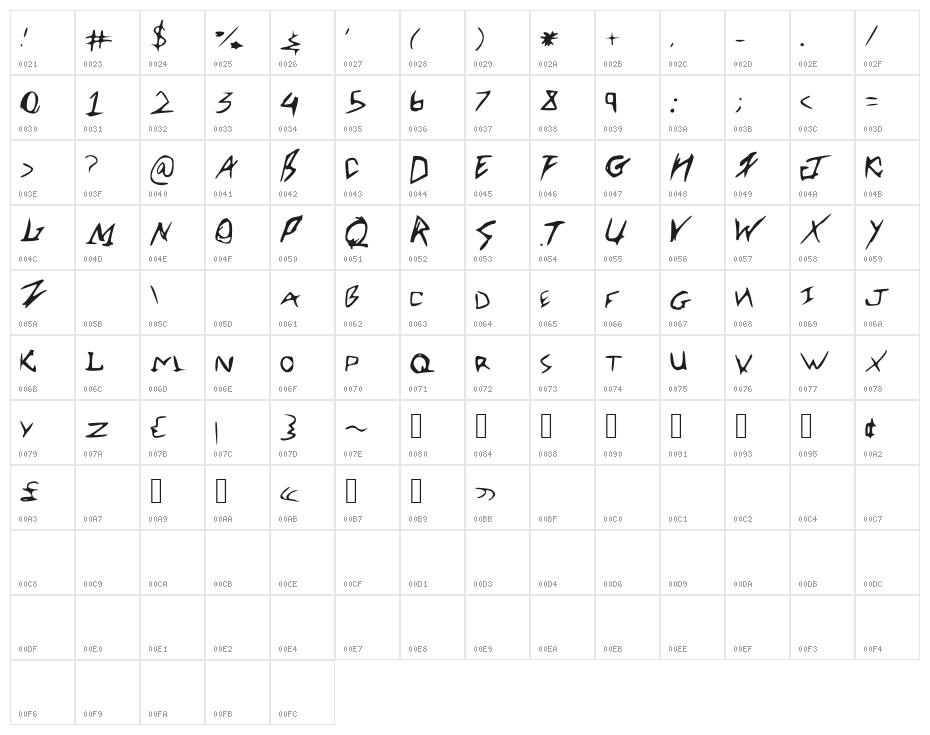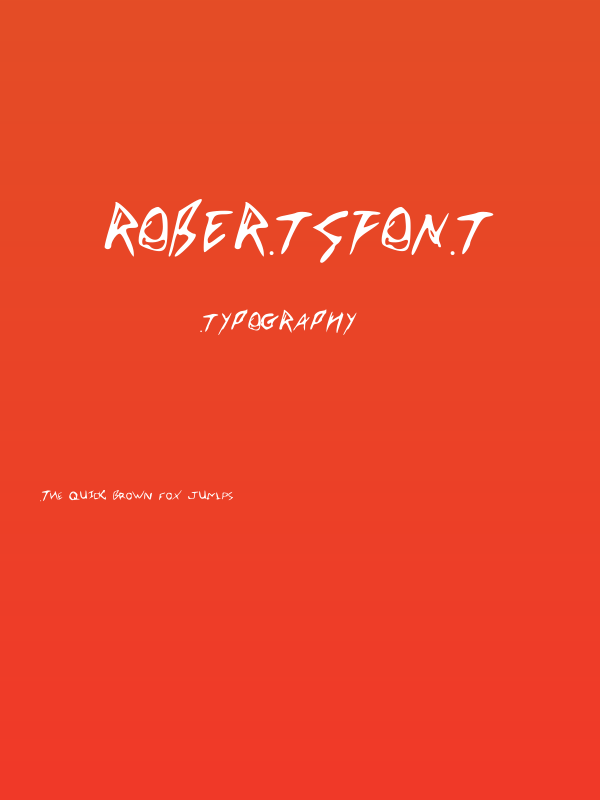
RobertsFont Font
RobertsFont Description
This font features a bold and dynamic style with sharp, angular strokes that give it a distinct, edgy appearance. The uppercase and lowercase letters maintain a consistent, aggressive flair, with exaggerated serifs and pointed terminals that create a sense of movement and energy. The numerals and special characters follow the same design ethos, ensuring a cohesive look across all glyphs. The font's unique style makes it stand out, ideal for projects that require a strong visual impact. Its artistic and unconventional design is perfect for creative and modern applications.
| Proposed Projects | Ideal for album covers, posters, branding, and any project needing a strong visual impact. |